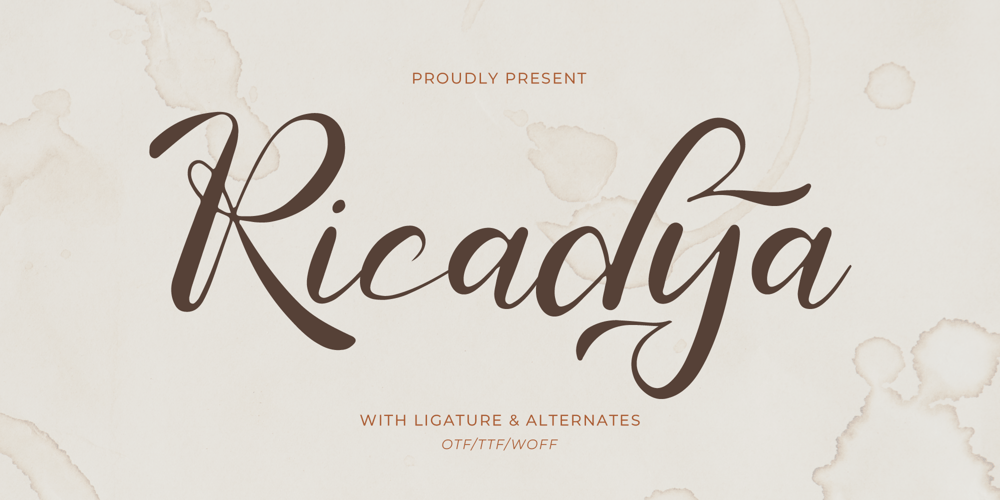
Ricadya
Ricadya font
Ricadya Font Family was designed by published by Tini Fitriani. Ricadya contains 2 styles and family package options. Ricadya | Handwriting Font, from Gracetypestudio, suitable for any projects such as: logos, branding projects, homeware designs, product packaging, mugs, quotes, posters, shopping bags, t-shirts, book covers, name card, invitation cards, greeting cards, label, photography, watermark, special events, and all your other lovely projects that need a Handwriting taste.========================================================================What’s Included : Regular and Italic Web Font Standard glyphs Alternate and Ligature Works on PC & Mac Simple installations Accessible in the Adobe Illustrator, Adobe Photoshop, Adobe InDesign, even work on Microsoft Word and Other Software. PUA Encoded Characters – Fully accessible without additional design software. Fonts include multilingual support Hope you enjoy with our font!